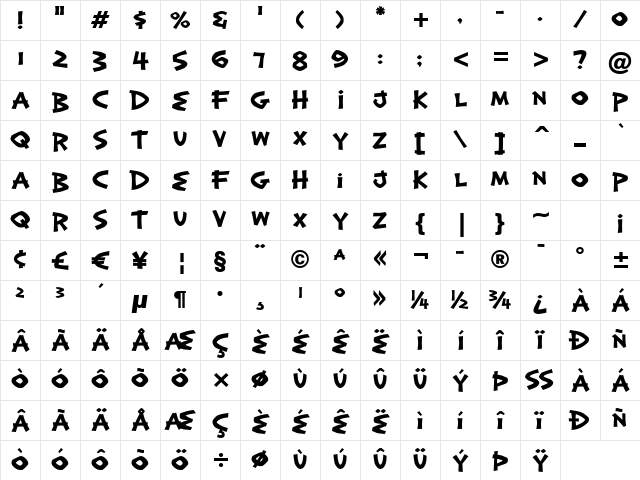
Exotic Island BTN Bold Free Font
Exotic Island BTN Bold
Design Context for Exotic Island BTN
Exotic Island BTN is a composed and adaptable typeface that performs quietly and consistently across a wide range of design contexts. Its bold stroke weight gives it real presence on the page.